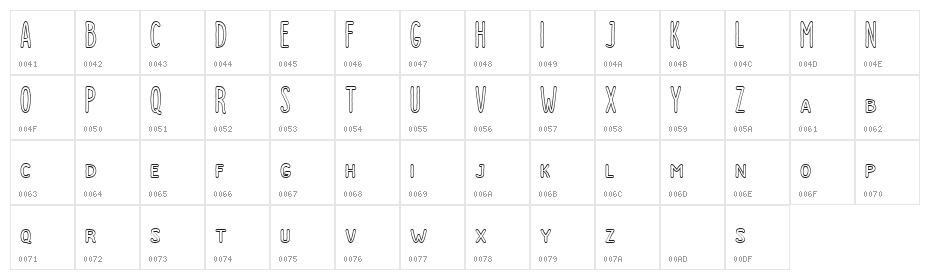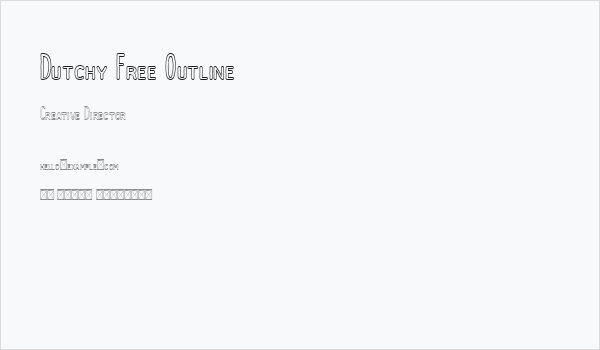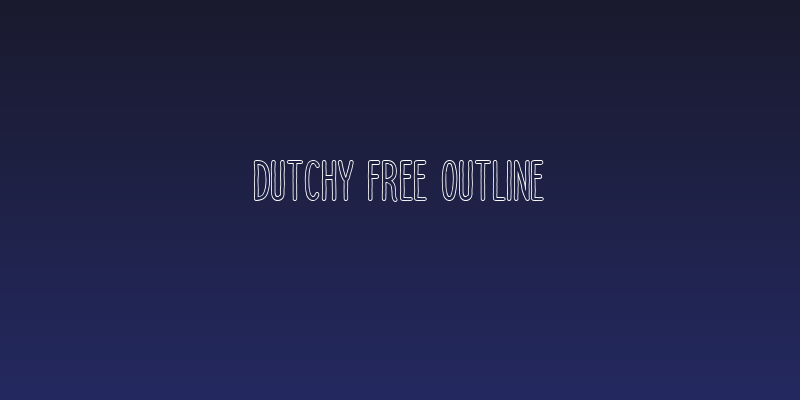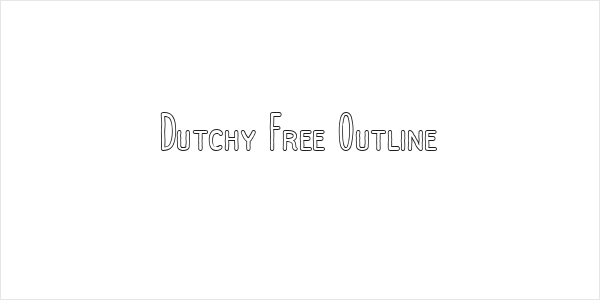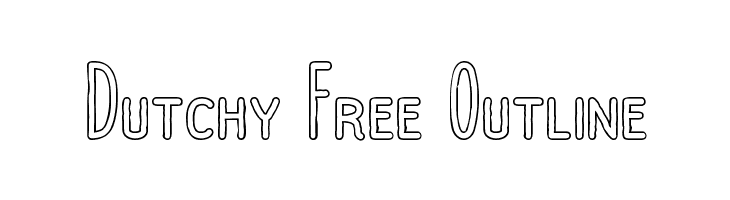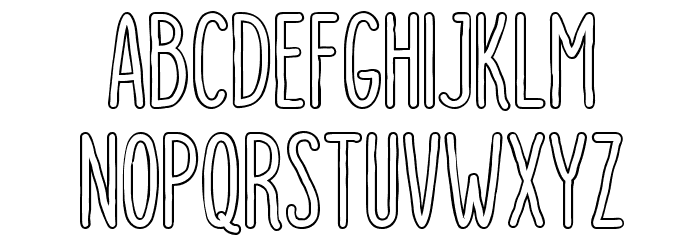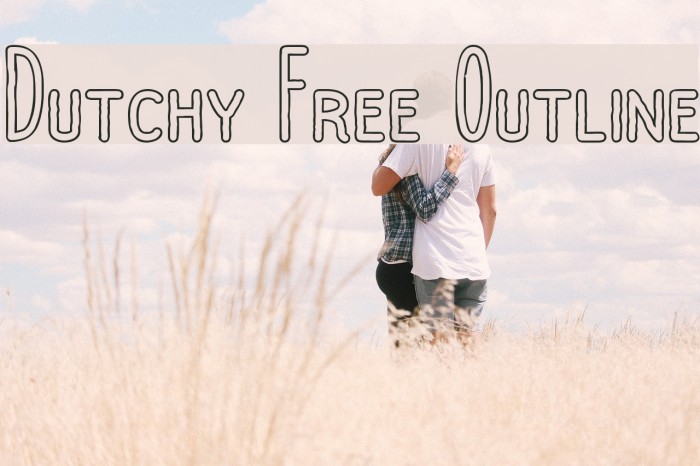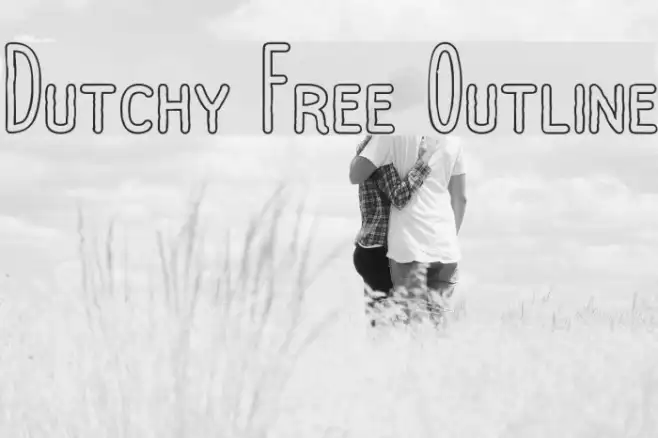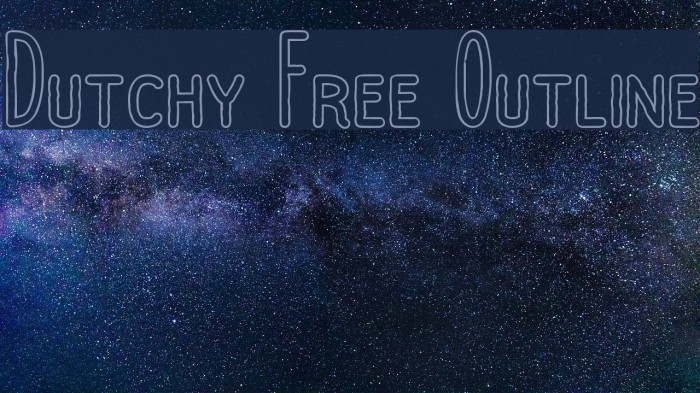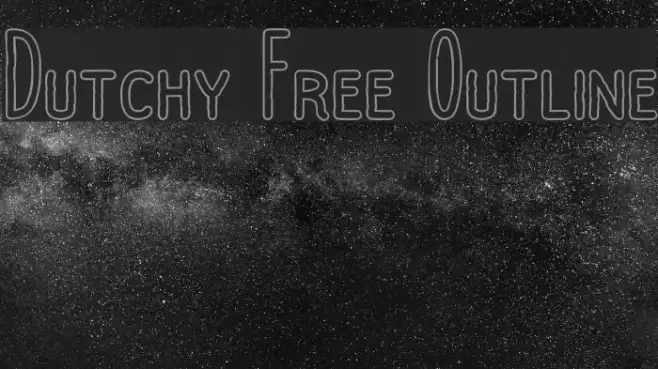
Dutchy Free Outline Font
Dutchy Free Outline Description
This font features a playful and artistic outline style, characterized by its hollow, hand-drawn appearance. Each letter is crafted with a consistent stroke width, creating a uniform and cohesive look. The uppercase and lowercase letters maintain a similar style, with rounded edges and a slightly whimsical feel. The numbers and special characters are designed to match the overall aesthetic, making it versatile for various creative applications. Its unique outline design makes it stand out, adding a touch of creativity and fun to any project.
| Overall Style | Playful, Artistic |
| Proposed Projects | Ideal for children's books, creative posters, playful branding, and artistic invitations. |